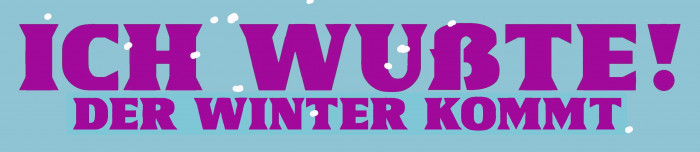
Only caps/unicase font. Also includes an "a" and "e" alternates... and a little "c" in the "¢" glyph. More kerning work is in process, btw.
Wow, nice one! I can really see this one on a bottle of liquor.
Honestly, I tried a personal pre-kern system on this font, something that would allow me to avoid some of the time-consuming glyph pair adjustments that we are forced to do with non-monospaced fonts. But I must admit that it didn't turn out as I imagined and, in the end, I had to add other new kerns instead of some of the ones I wanted to avoid. I add an image of how I positioned the letters for this attempt (really, not all bad).
@Sed4tives: I know, I know... Some people can make 15,000 (or more) kern pairs and still create beautiful fonts in the meantime, but let me try it this clumsy way too, pal. Thanks a lot!
More kern added and some little improvements on a few curves.